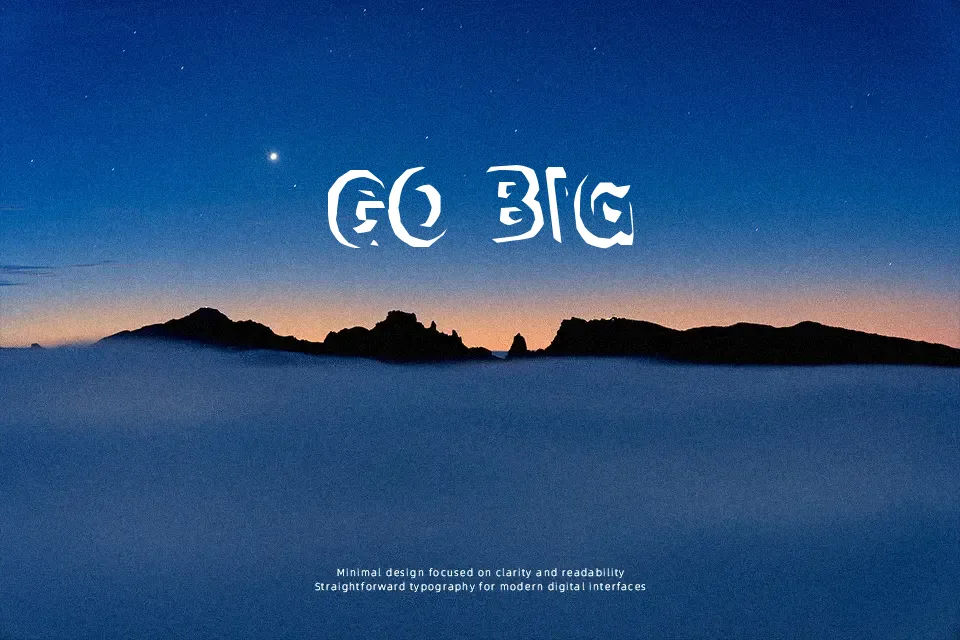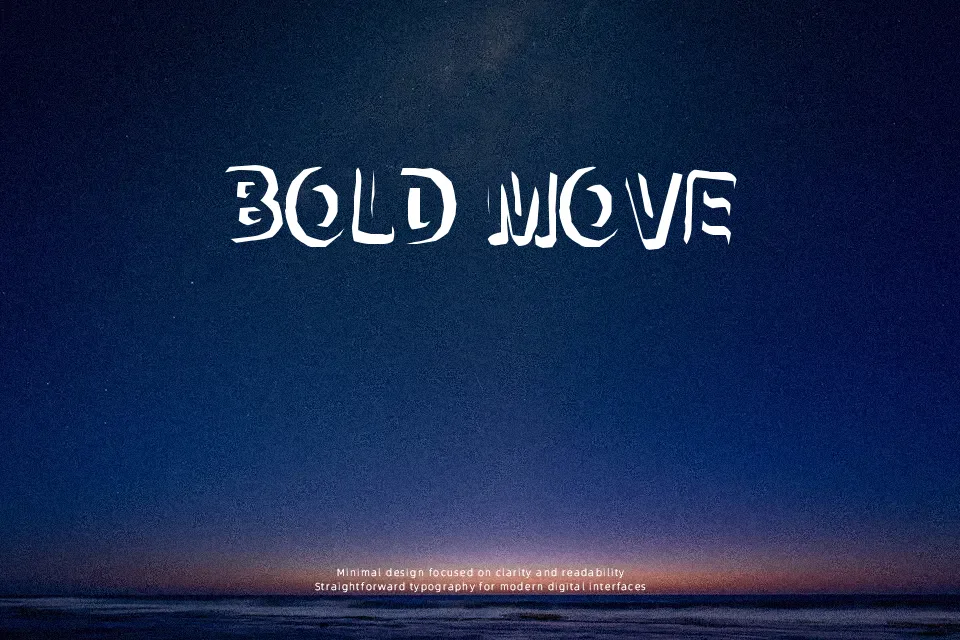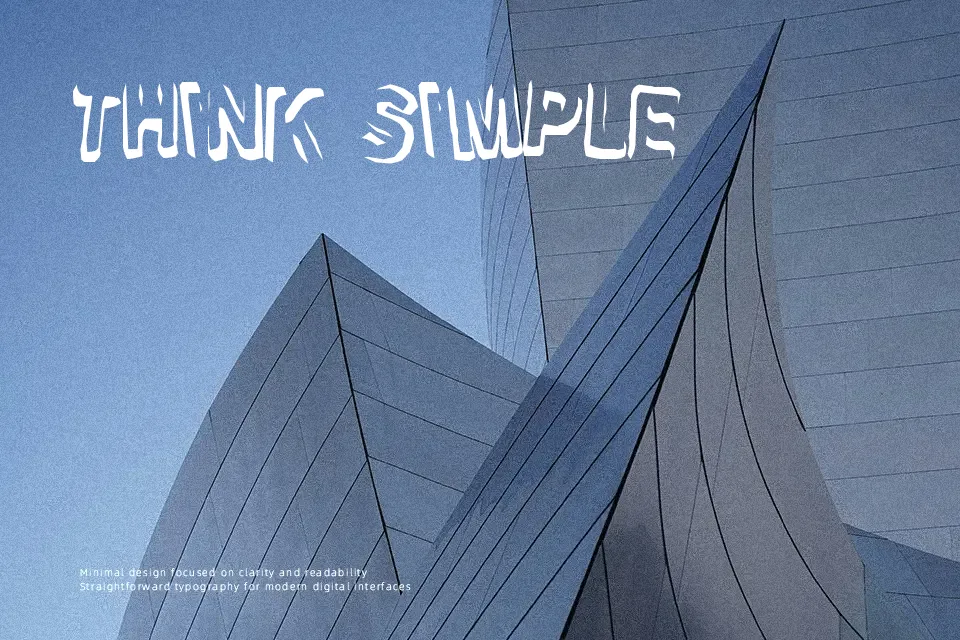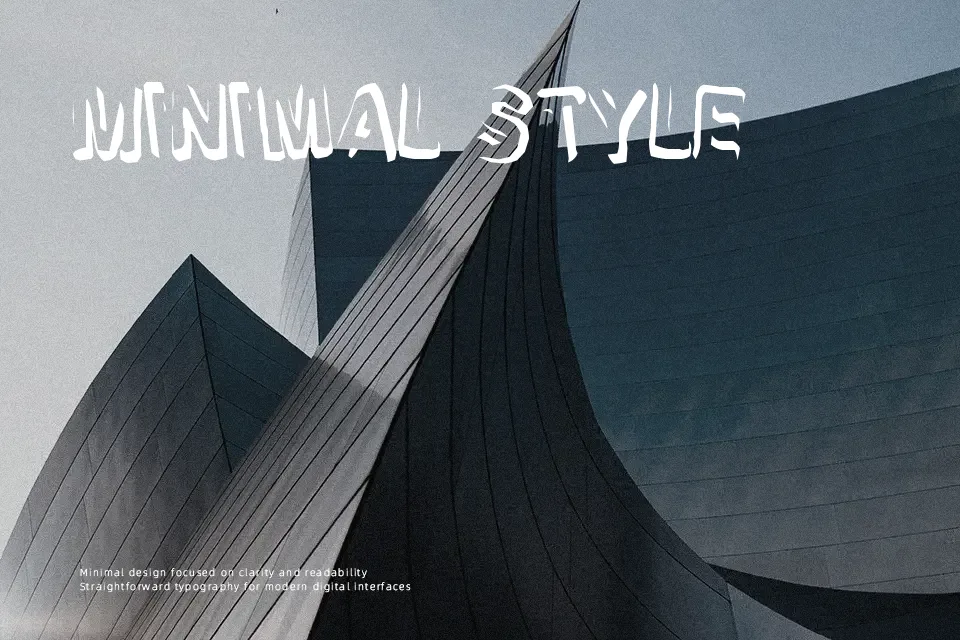
Refrigeration Font
Refrigeration Font features a chunky, distorted structure with irregular strokes that create a chiseled, grunge-edged appearance. The bold letterforms rely on crooked angles and a textured, embossed style to convey a rough visual theme. Its compact spacing maintains density, giving words a solid, block-like rhythm. The uneven proportions and distressed edges provide strong visibility in large display sizes, making it an excellent choice for winter festival posters or gaming packaging. The heavy stroke weight helps maintain clarity in larger headlines, ensuring the text remains highly impactful. However, the decorative complexity makes it less effective at smaller scales, where distressed details tend to blur. Dense forms reduce comfort during extended reading, so it should be avoided for long paragraphs.
winter festival posters
horror game titles
beverage product packaging
music album covers
Perfect for headline, logo, and packaging, with a bold and decorative style.